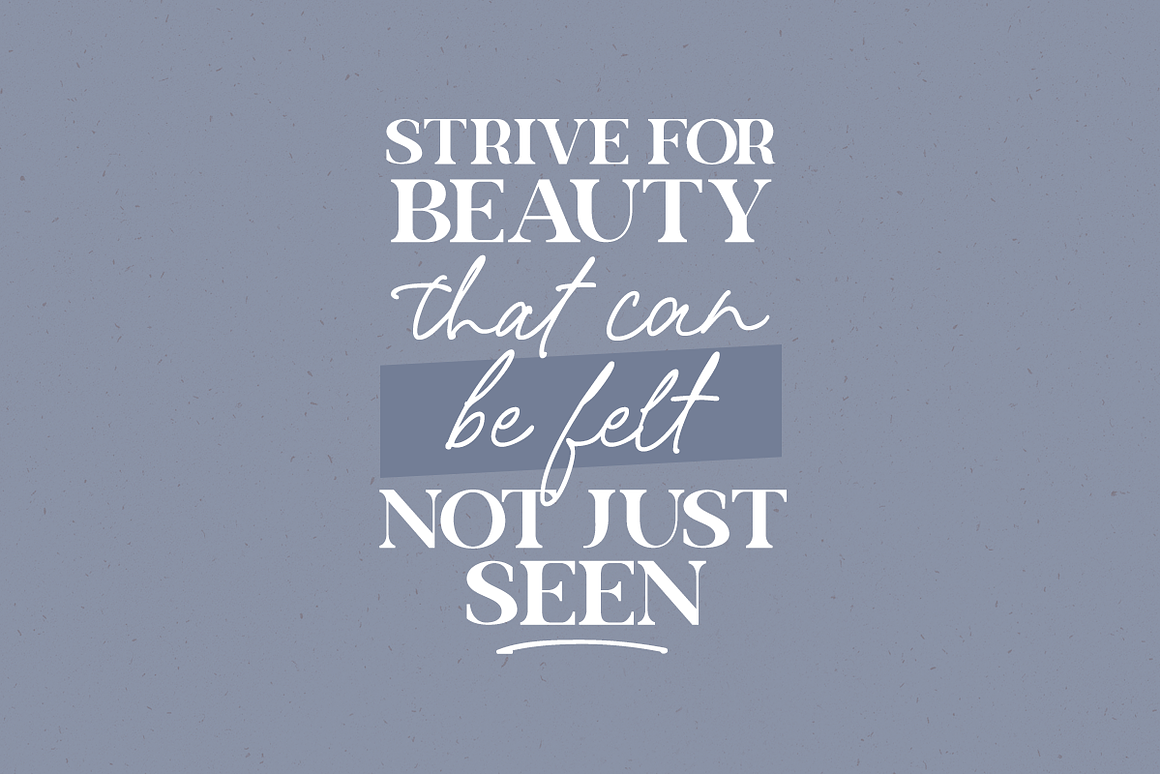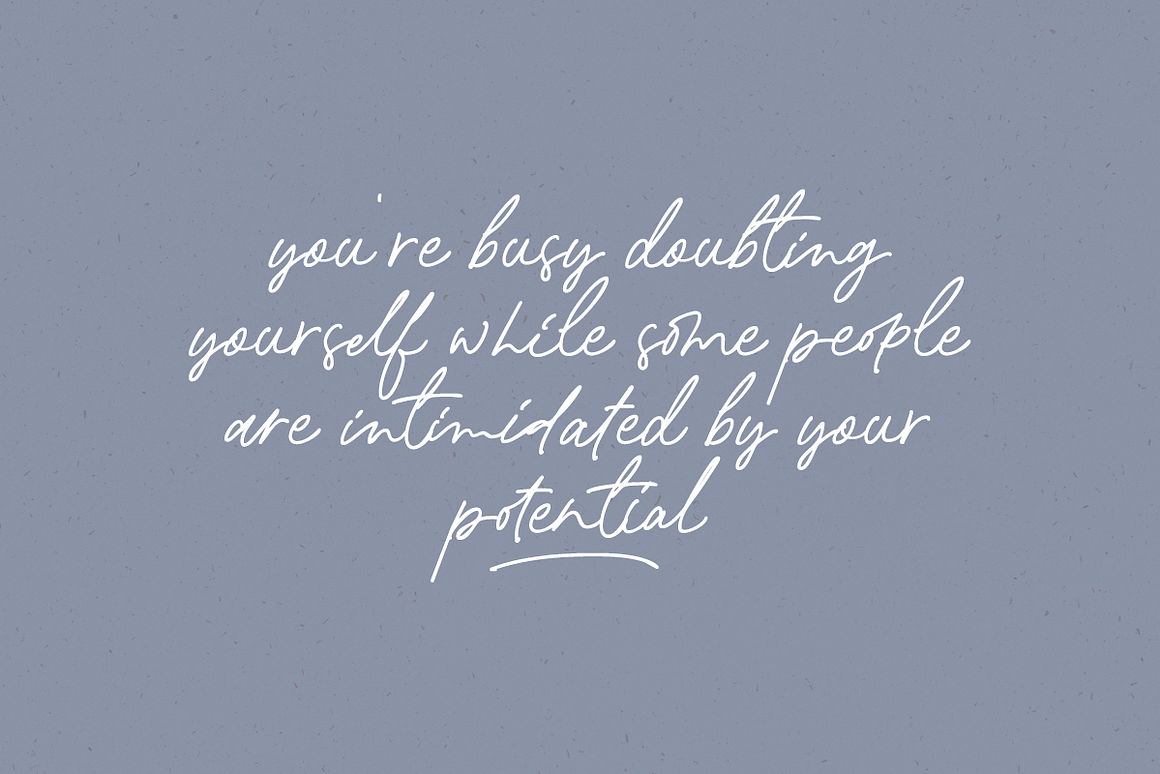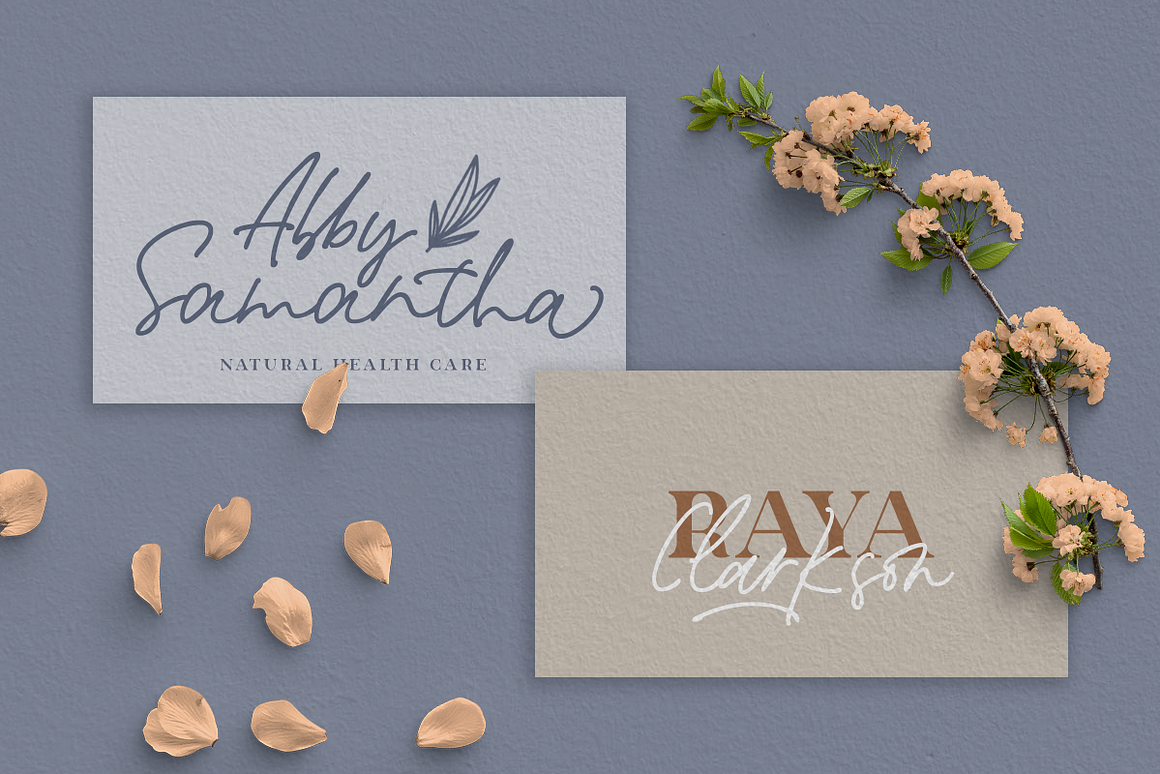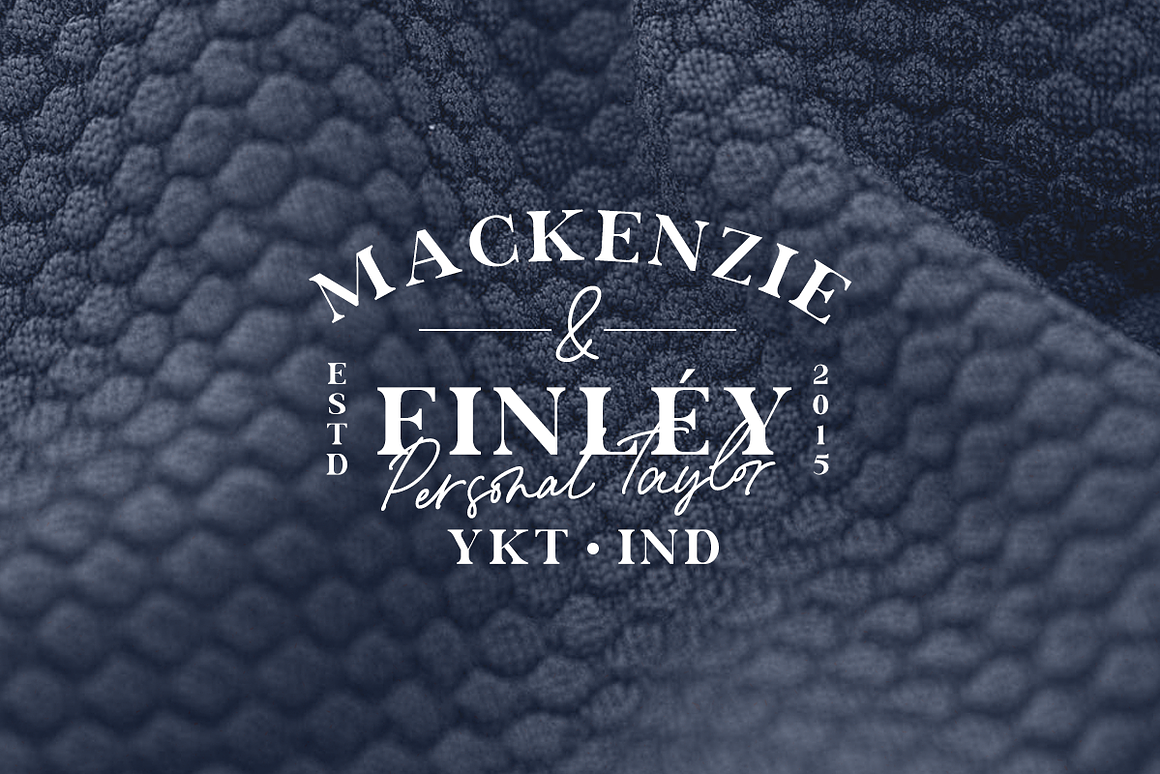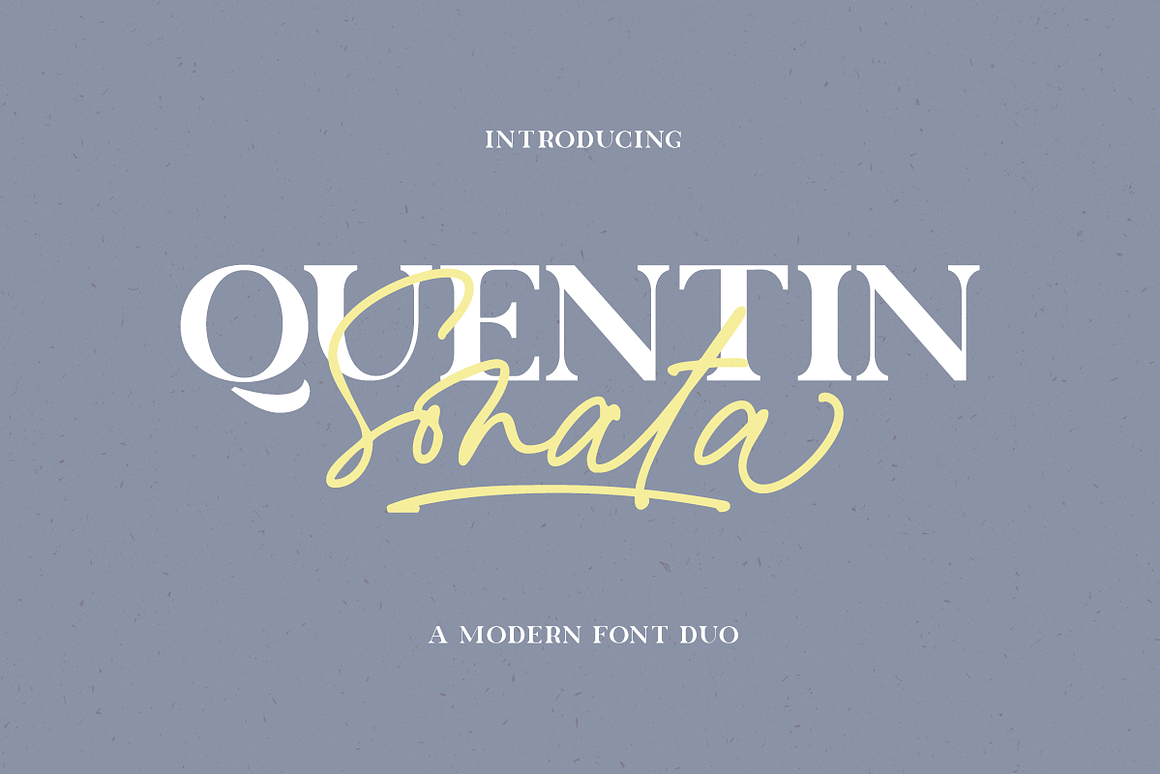
Quentin Sonata - Font Duo
This Quentin Sonata - Font Duo is perfect for classical music branding, elegant concert programs, sophisticated cultural events, premium arts marketing, refined theater materials, classical ballet promotions, upscale conservatory communications, luxury symphony hall signage, distinguished chamber music projects, and harmonious artistic presentations.
What makes this Quentin Sonata - Font Duo exciting is its musical elegance that captures the sophisticated harmony of classical composition and artistic refinement. The font duo features complementary serif and script styles that work together like musical instruments in perfect harmony, creating sophisticated typographic compositions with cultural depth. Its classical character and artistic sophistication make it ideal for brands seeking to communicate cultural excellence, musical heritage, and refined artistic sensibilities.
The Quentin Sonata - Font Duo family includes serif and script components with multiple weights, classical alternates, and musical ornaments. This comprehensive classical font duo provides designers with harmonious typographic tools to create sophisticated cultural compositions while maintaining the refined character essential for arts organizations and classical music communications.
Cultural institutions and classical music organizations consistently choose Quentin Sonata - Font Duo Free Download for projects requiring authentic classical appeal and cultural sophistication. This font duo's distinctive musical character perfectly captures the artistic excellence and cultural refinement that resonate with audiences who appreciate classical music, fine arts, and sophisticated cultural experiences.
The harmonious construction of Quentin Sonata - Font Duo showcases elegantly paired letterforms that create beautiful typographic rhythm and cultural sophistication. Its classical proportions and musical harmony ensure exceptional performance across all cultural applications, from intimate recital programs to grand symphony hall promotional materials requiring artistic excellence.
Professional designers appreciate how Quentin Sonata - Font Duo brings immediate cultural sophistication and artistic elegance to brand communications. The font duo's classical nature allows cultural organizations to communicate artistic excellence and refined taste while maintaining the sophisticated quality necessary for effective positioning in prestigious arts and classical music markets.
The timeless appeal of Quentin Sonata - Font Duo makes it particularly effective for brands emphasizing classical traditions, artistic excellence, and cultural sophistication. Its harmonious character resonates strongly with audiences who appreciate fine arts, classical music, and cultural institutions that preserve and celebrate artistic heritage and musical excellence.
Whether developing materials for symphony orchestras or creating branding for classical music festivals, Quentin Sonata - Font Duo Free Download provides the sophisticated typographic foundation that cultural brands need to communicate their artistic excellence, classical heritage, and the harmonious beauty that defines classical music and refined cultural experiences.